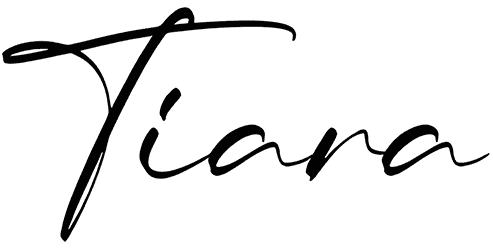
Tiara Font
The beauty of the Tiara lies in its imperfection, and slight variations in the width and curvature of the lines give it its unique character. In digital communication, this signature font can be your winning card to tell a personal story and add a new essence to human relationships.
After that, use it to diversify your design process and engage the audience longer with your album, tattoo, clothing, and packaging design by challenging the readability.